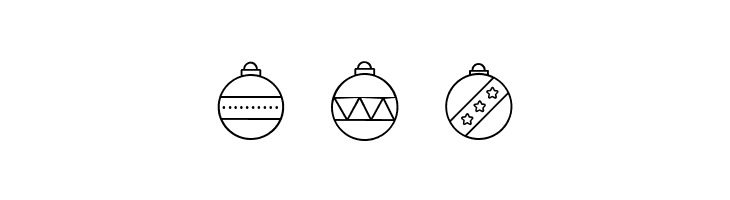
( Andrea Bartsch - www.fraubartsch.de )
A whimsical, character-based decorative font with abstract cartoon figures.
( Anthony Robinson - www.redbubble.com/people/anfa/portfolio )
Decorative pictogram set with anonymous and mask motifs.
( Denise B. - www.budeni.com )
A decorative set of music-themed illustrations and star-styled numbers.
( FlipDarius - Felipe Dário - felipedario.com/ )
An artistic and illustrative font with characters embedded in folk art scenes.
Superhero silhouette font with each glyph as a character pose.
( Intellecta Design - Paulo W - new.myfonts.com/foundry/Intellecta_Design/?refby=paulow )
Ornate dingbat set with historical and whimsical illustrations.
( Intellecta Design - Paulo W - new.myfonts.com/foundry/Intellecta_Design/?refby=paulow )
A decorative font using semaphore flag signals for each character.
( Laurent Badaouy )
A pictorial, illustrative font with each glyph as a narrative scene.
( Woodcutter - woodcutter Manero - www.woodcutter.es )
A whimsical and illustrative font with cartoonish, bold characters.
( Zetafonts - www.zetafonts.com )
Outlined, festive Christmas icon set with consistent line style.